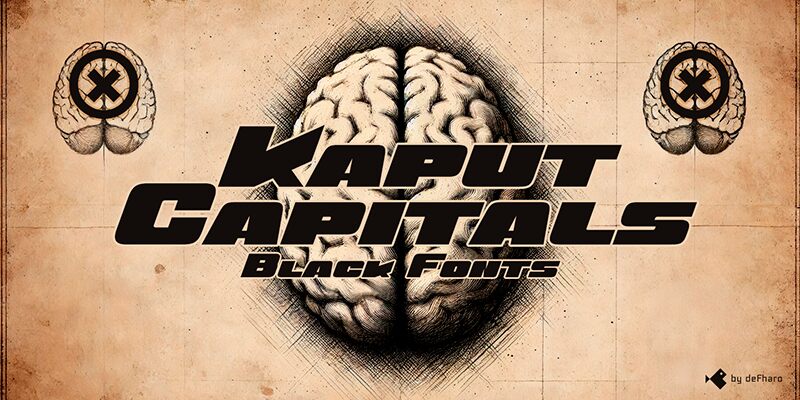
Kaput Black Italic is a unique sans serif typeface with a rounded finish on the outside, and combining curves with sharp angles on the inside, heavy and made in capitals, it comes to create great titles and high-impact visual communication.
OpenType Features: Various alternative letter and number sets, dynamic fractions, arrows, etc.
Kaput Black, a heavy and unique uppercase typeface family, is here to revolutionize the way we conceive great titles and high-impact visual communication. Kaput is designed with a perfect balance between strength and sophistication, it is bold, semi-expanded and spectacularly legible, the thick lines and horns with marked contrasts, not only capture attention, but also provide meticulous harmony, thanks also to a thorough work on metrics and kerning. Available in Black and Black Italic versions, the 20-degree inclination of the italic version adds a touch of dynamism and modernity.